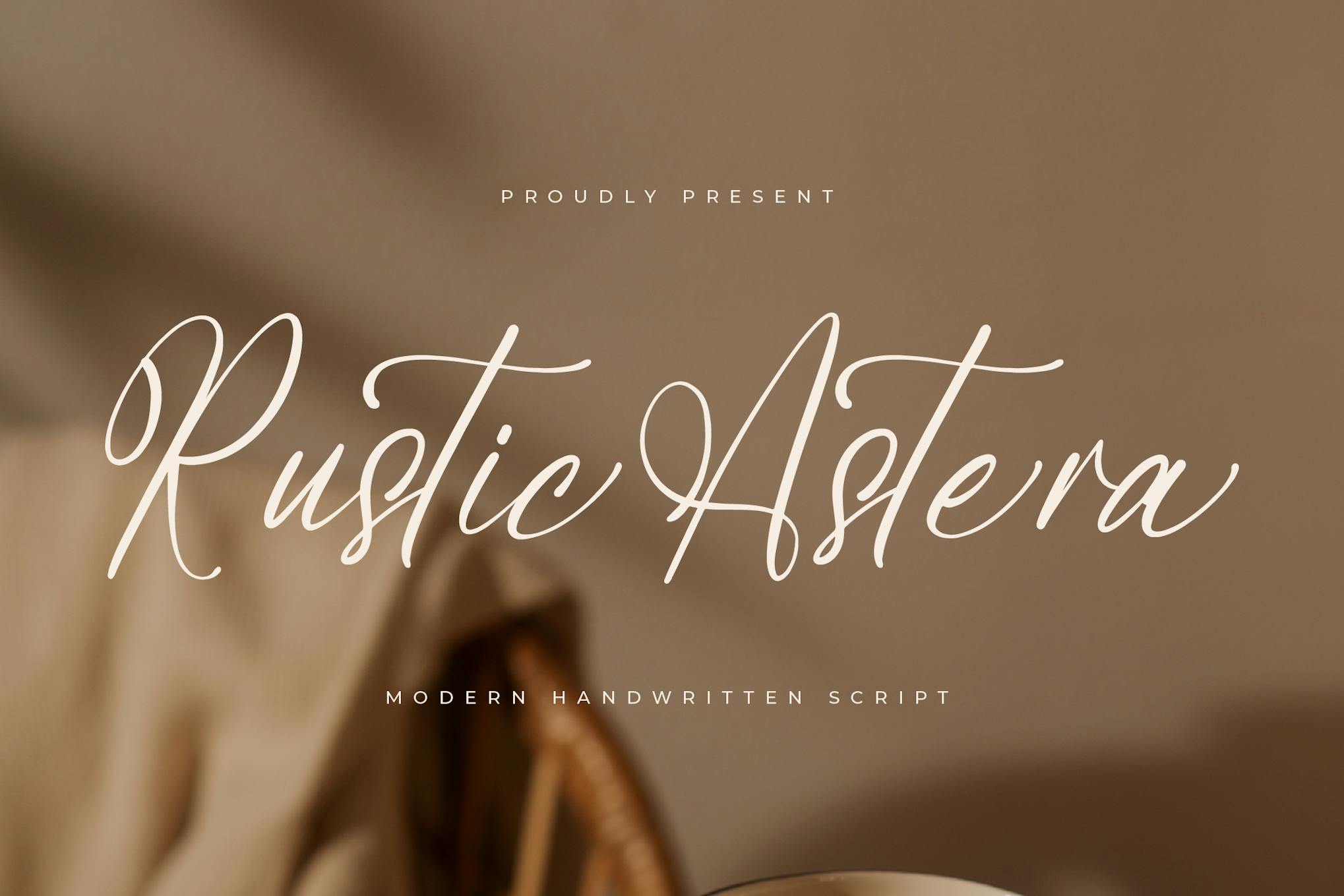
Rustic Astera Modern Handwritten Script is a versatile font that adds a touch of elegance and charm to any design project. Its fluid, handwritten style is perfect for creating personalized invitations, branding materials, or social media graphics. Designed for optimal readability, this font works well at any size, making it an excellent choice for both digital and print applications.